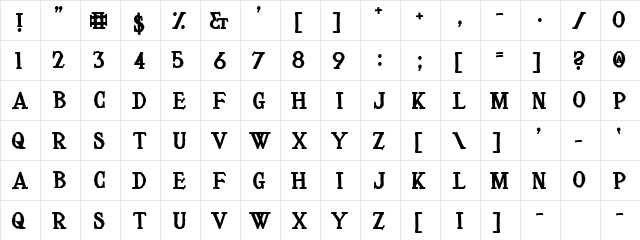
Le Voyage Dans La Lune Regular
Design Context for Le Voyage Dans La Lune Typeface
Le Voyage Dans La Lune takes a measured approach to typography — its balanced proportions and neutral character make it a reliable workhorse for both digital and print work.